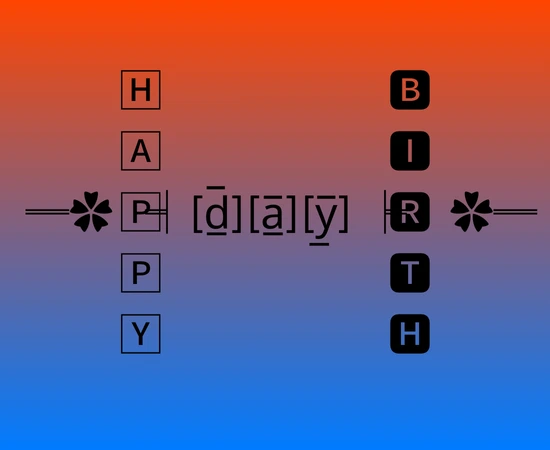
Box Text
The Power of BoxyFonts
The boxy-style Unicode font isn’t just for looks—it adds a mysterious, encrypted feel to text. Perfect for puzzle challenges, escape rooms, and secret message games, it turns simple words into hidden codes. On social media, it helps create cryptic clues, while in mystery games, players can decode text to unlock levels. Even websites can use it as a fun CAPTCHA alternative, requiring users to retype stylized text. Whether for brain teasers, treasure hunts, or digital ciphers, this font makes content more intriguing and immersive.
Make Your Text Stand Out with Boxy Font Art